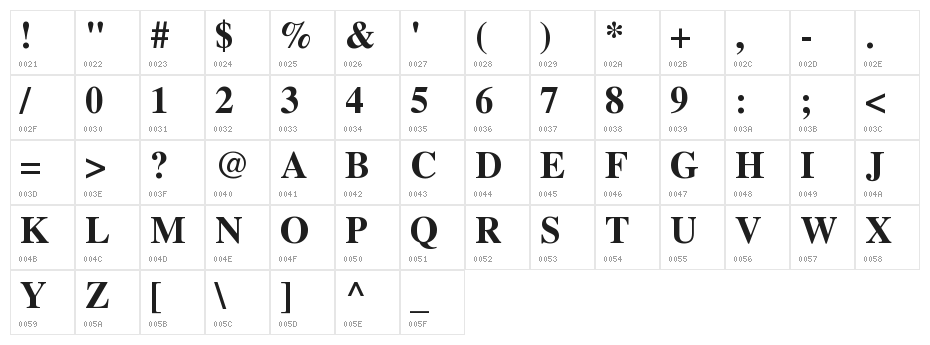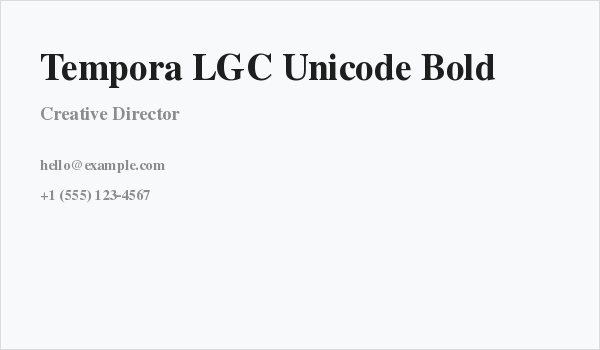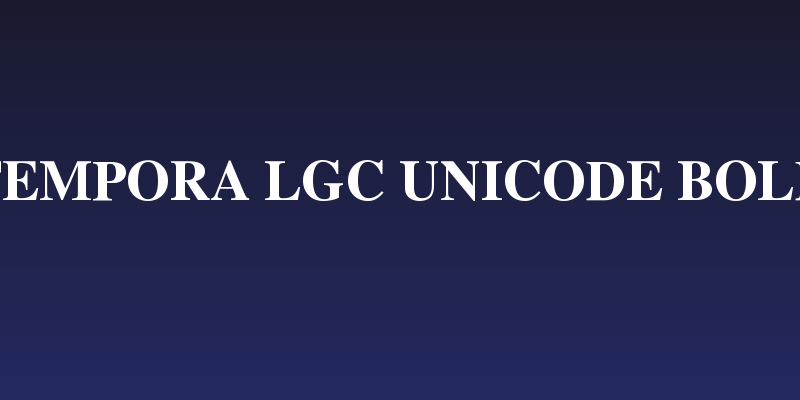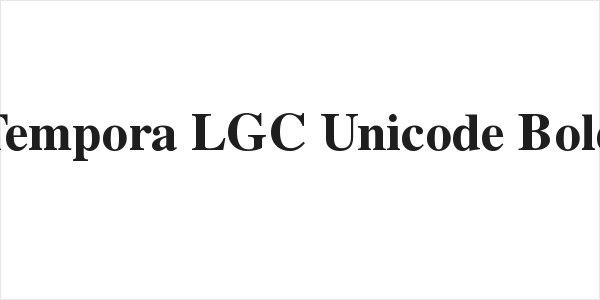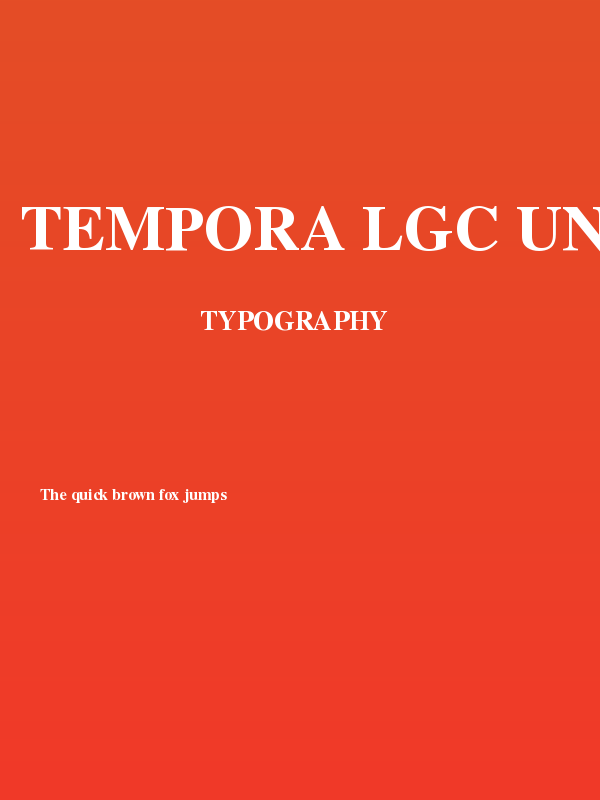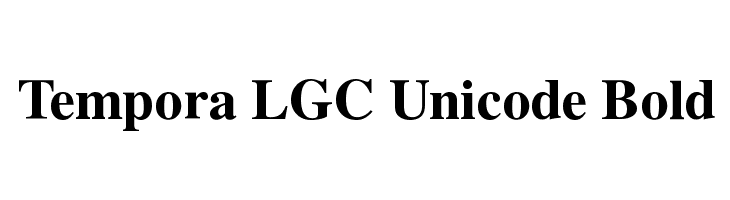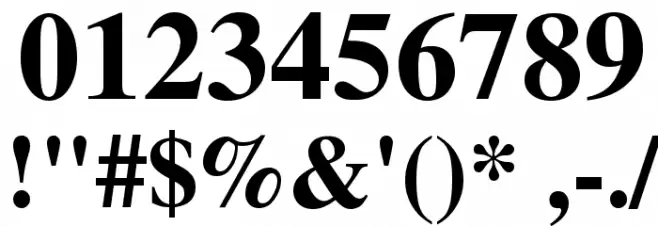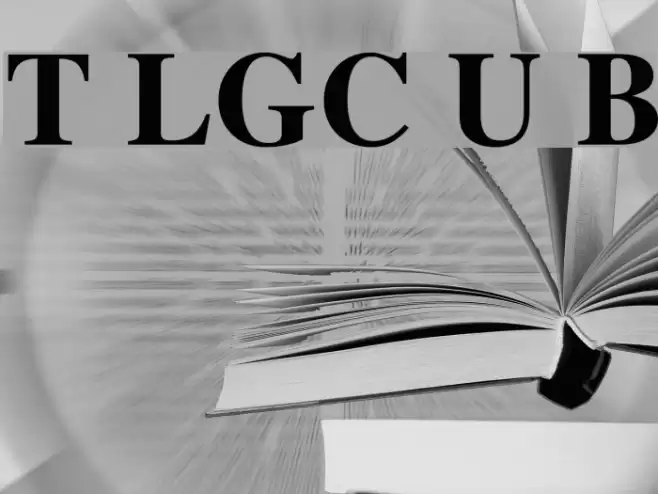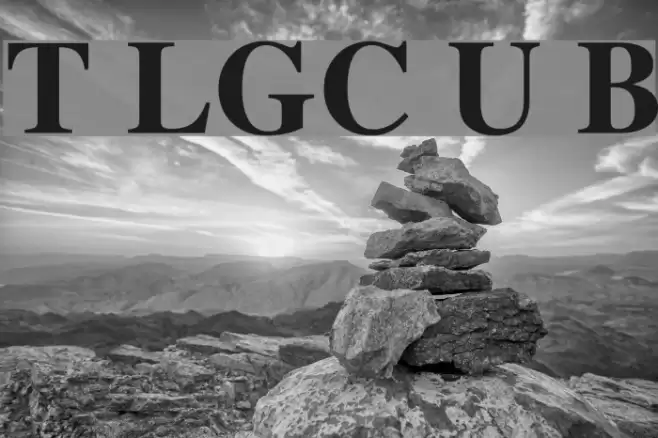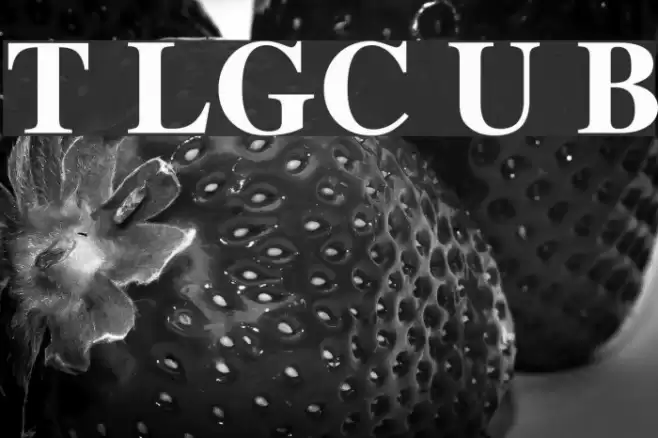
Tempora LGC Unicode Bold Font
Tempora LGC Unicode Bold Description
This font features a classic serif design with bold, prominent strokes that convey a sense of authority and tradition. The uppercase letters are well-defined with sharp serifs, while the lowercase characters maintain a consistent style with slightly rounded edges. The numerals are clear and easy to read, making them suitable for both formal and casual contexts. Special characters are designed with the same attention to detail, ensuring uniformity across all glyphs. The overall appearance is balanced, with moderate contrast between thick and thin strokes, giving it a timeless and versatile appeal.
| Overall Style | Classic |
| Use Case | Headlines, Body text, Logos |
| Proposed Projects | Ideal for editorial design, book covers, formal invitations, and branding projects that require a touch of elegance and tradition. |